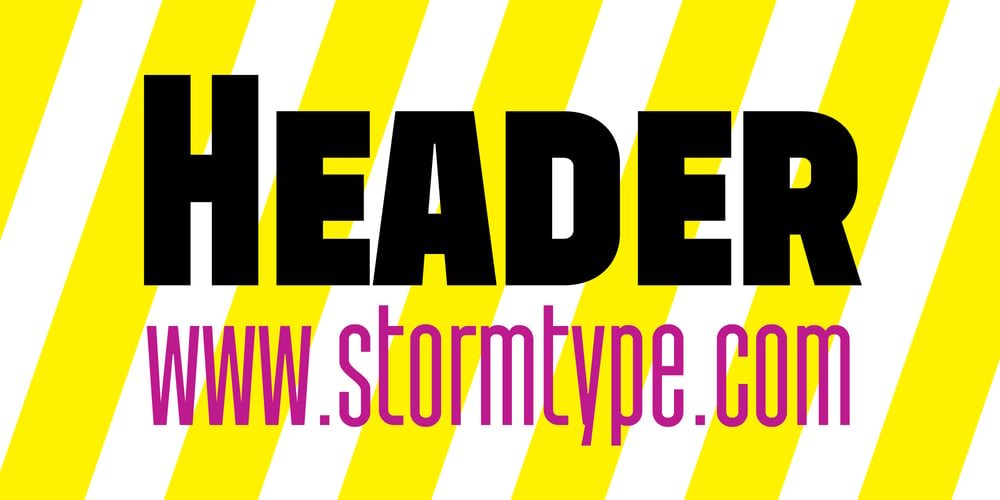
Header Font Family was designed by František Štorm and published by Storm Type Foundry. Header contains 5 styles and family package options. Useful for newspaper and magazine headlines, a must for all kinds of impacting posters. Header includes hybrid glyphs encoded where small caps are normally found.